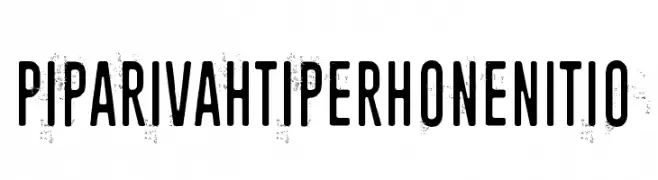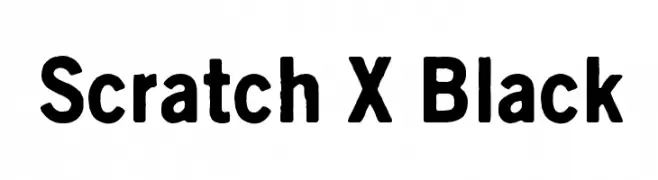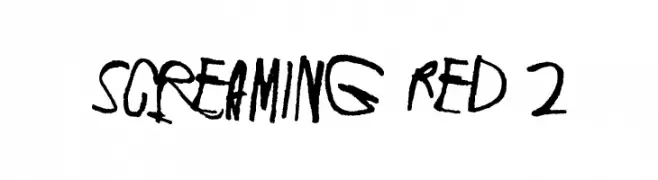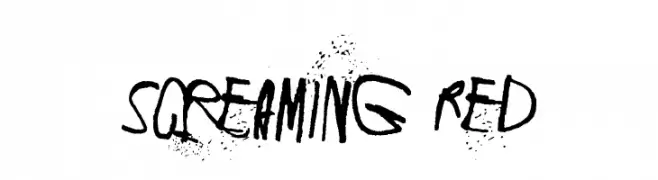
• Scratch X Black
A bold, rugged font with a distressed, handcrafted look.
• Beyond These Things
A bold, outlined font with a playful, retro aesthetic and hand-drawn quality.
• Piparivahtiperhonen Itio
A bold, condensed font with a distressed, vintage texture.
• Piparivahtiperhonen
A bold, modern sans-serif font with tall, narrow characters and uniform stroke width.
• Screaming Red 2
A bold, expressive font with dynamic, hand-drawn strokes.
• Screaming Red
A bold, expressive font with brush-like strokes and a gritty, rebellious aesthetic.
• Louis Cypher
A bold, distressed font with a rough, textured, and grunge-like appearance.
• Almost like the blues
A bold, playful font with a hand-drawn, three-dimensional effect.
• World without end
A playful, hand-drawn font with a quirky and informal style.
• This side up
A bold, distressed font with a vintage, rugged appearance.